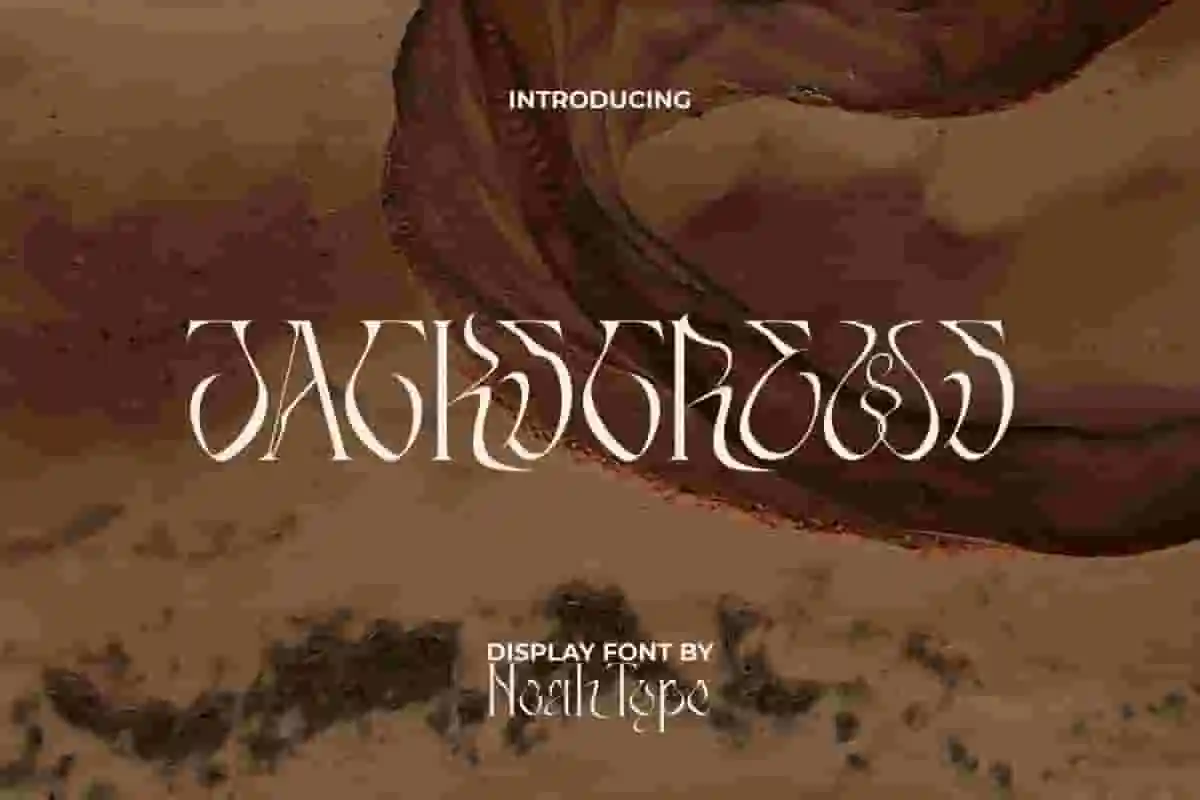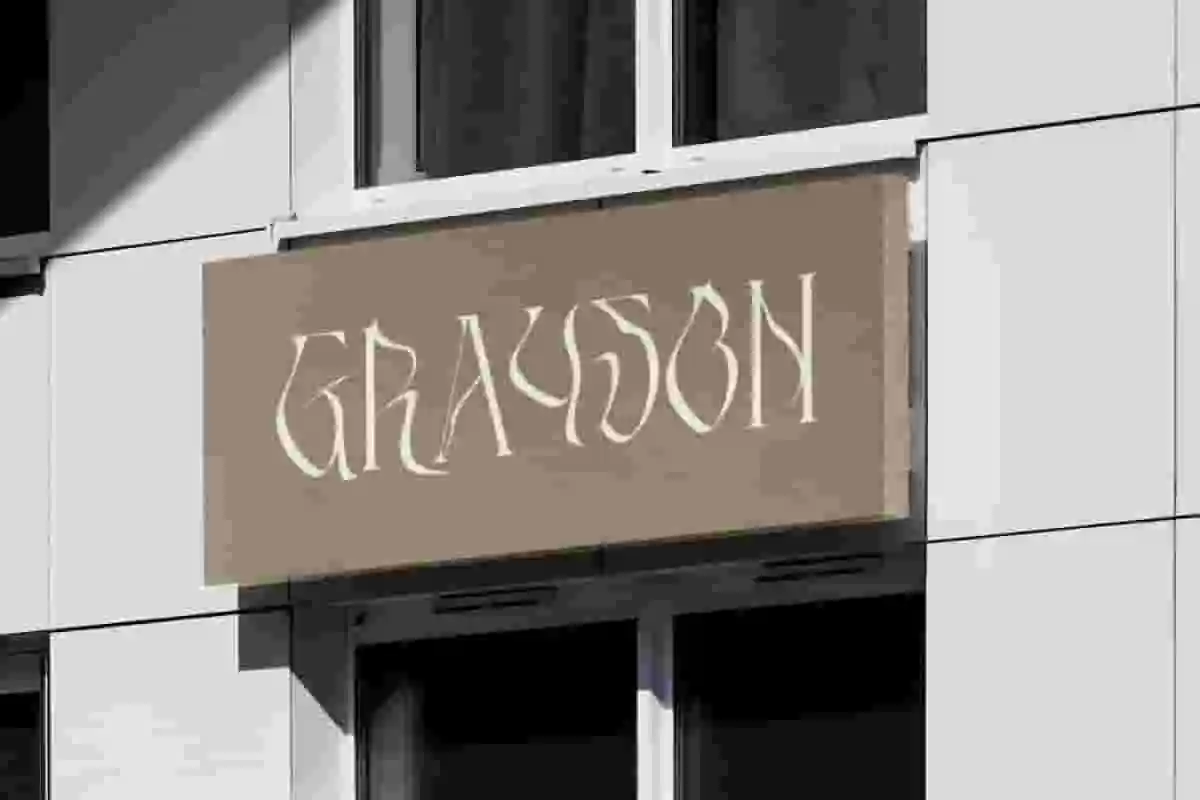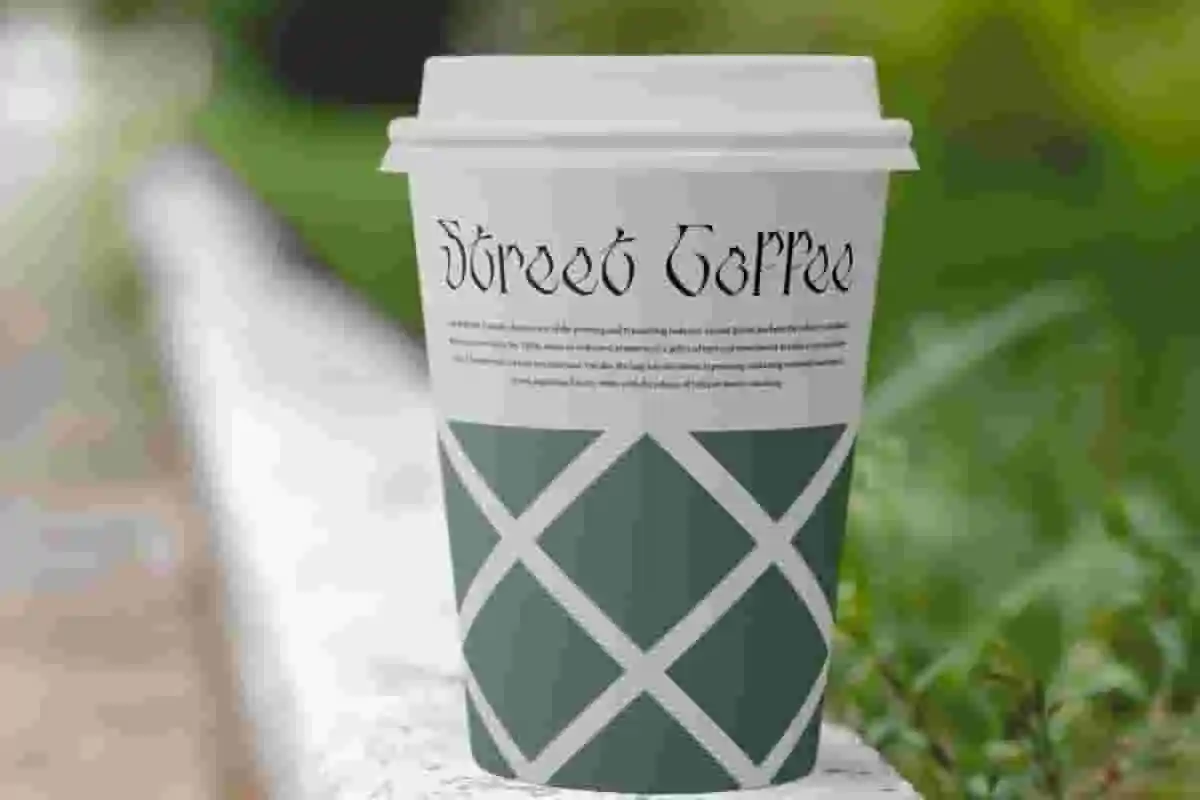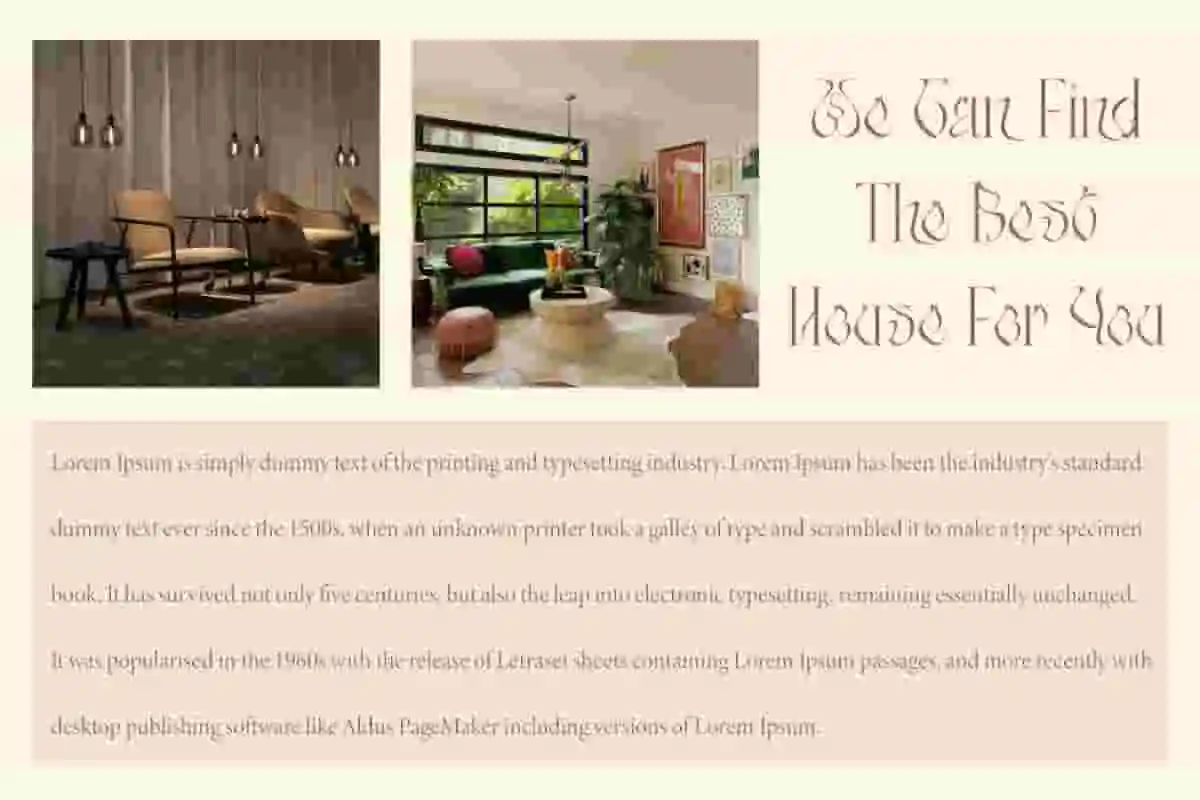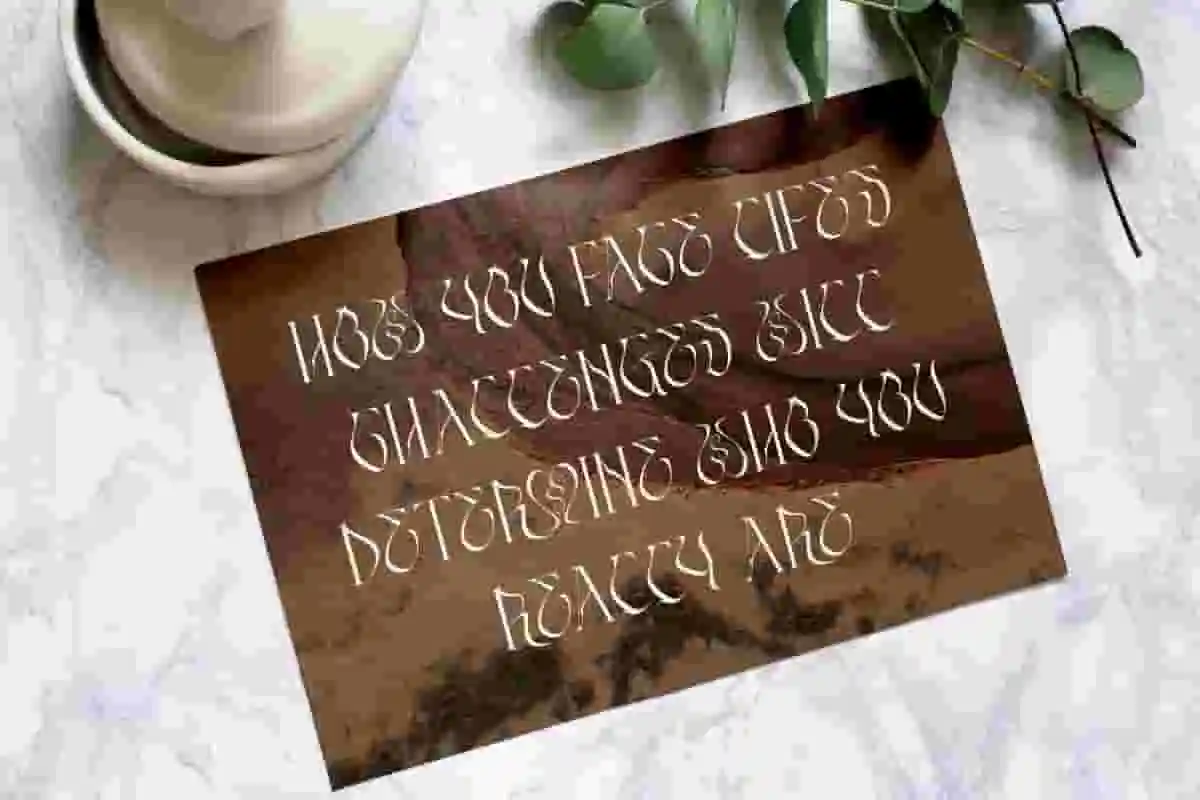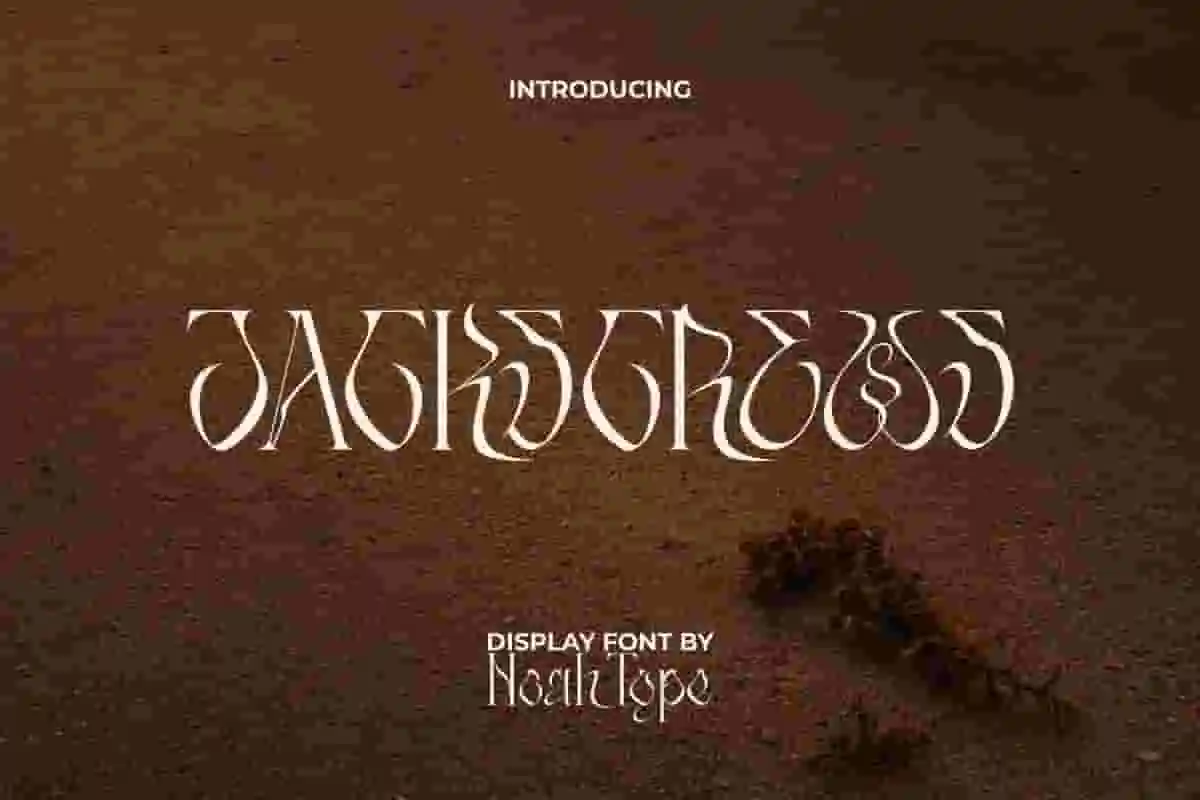
Jackscrews Font is a magical shaky unusual strange yet luxurious display font, well made by NoahType. This font can convey a beautiful futuristic impression and is perfect for any design you create. It will be perfect for any designs, such as signage, poster, brand image, cover, custom design, invitation, label, marketing material, menu, printing, product packaging, quotes, website, and many more!
Jackscrews Font includes full set of ALL CAPS for Uppercase and Lowercase Basic Characters, Numerals, Punctuation, and Symbol. This font will make your design standout and also a perfect choice for many industries, such as fashion, game, movie, accessories and jewelry, advertising, art, café, event or festival, printing, publishing, etc.